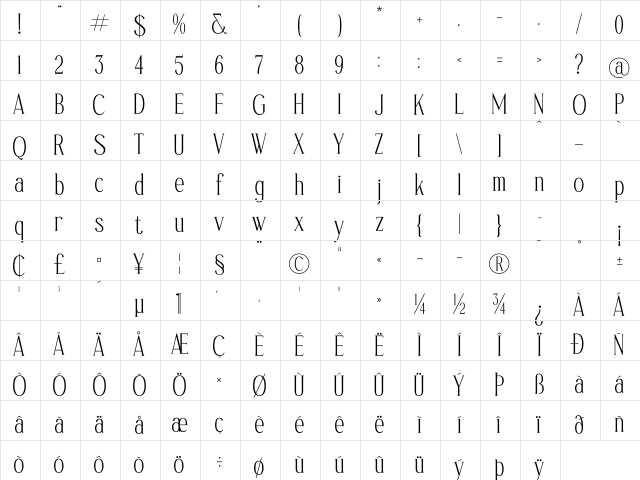
Sufinter Regular
Foundry: Storytype Studio
Designer: Heru Utama Putra
Complete Sufinter Regular glyph index. Displaying only characters natively supported by Sufinter Regular font.
Design Context for Sufinter
Sufinter is a composed and adaptable typeface that performs quietly and consistently across a wide range of design contexts.